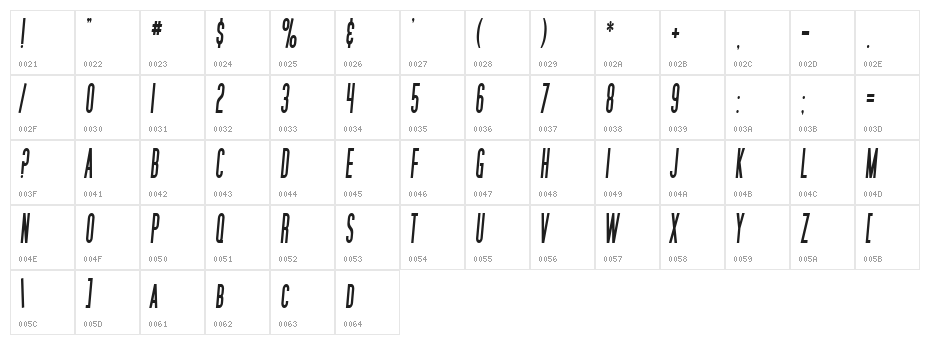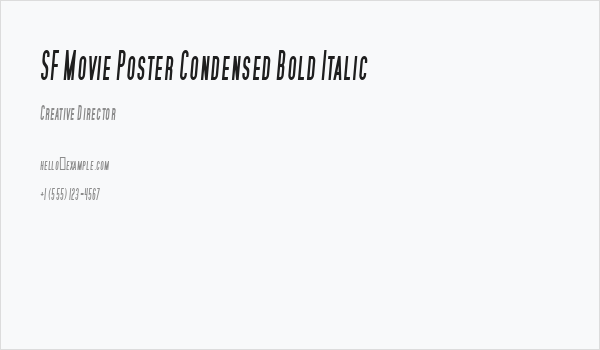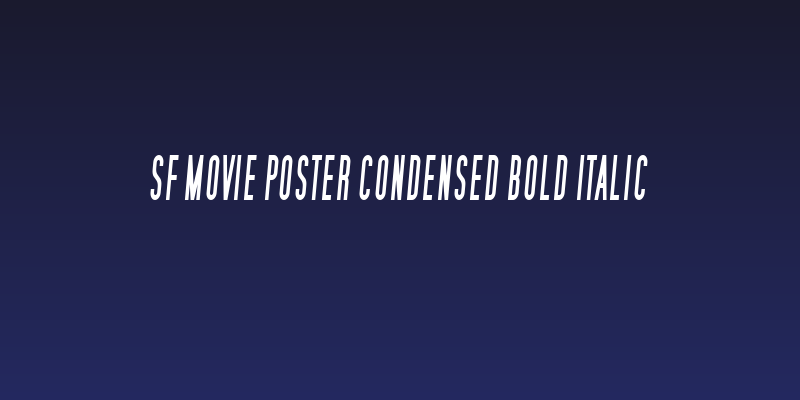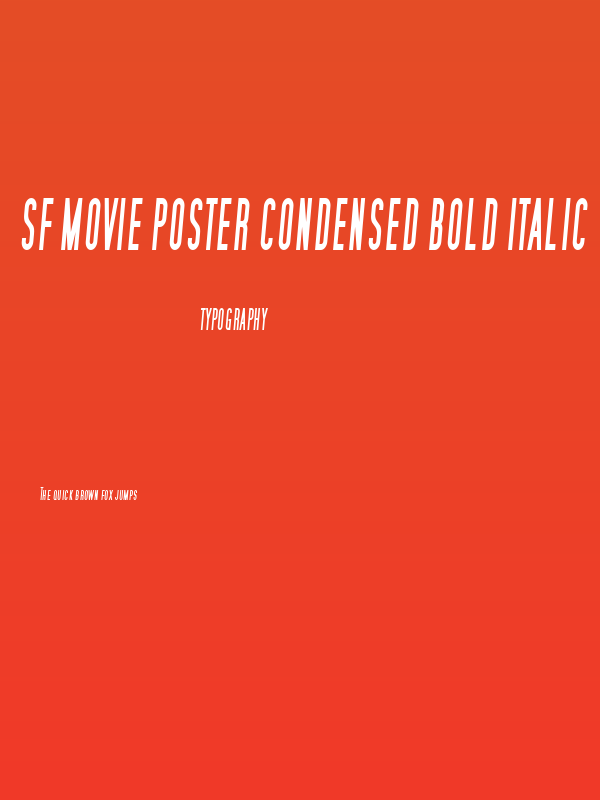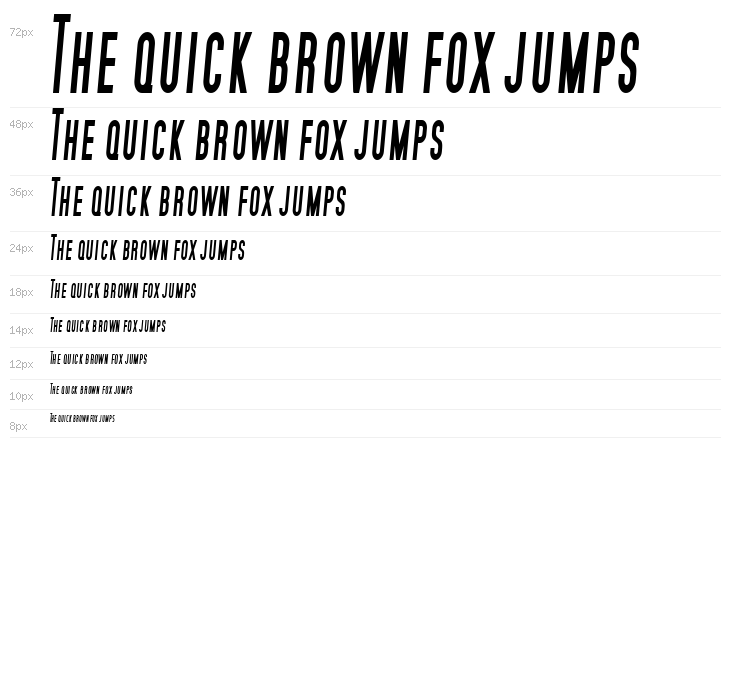
SF Movie Poster Condensed Bold Italic Font
SF Movie Poster Condensed Bold Italic Description
This font features a bold and italicized style with a condensed width, making it ideal for impactful and attention-grabbing designs. The uppercase letters are tall and narrow, providing a sleek and modern appearance. The numbers and special characters maintain the same condensed and bold characteristics, ensuring consistency across all text elements. The italic slant adds a dynamic and forward-moving feel, enhancing its suitability for contemporary and energetic projects.
| Proposed Projects | Ideal for movie posters, advertising campaigns, headlines, and branding materials that require a strong visual impact. |